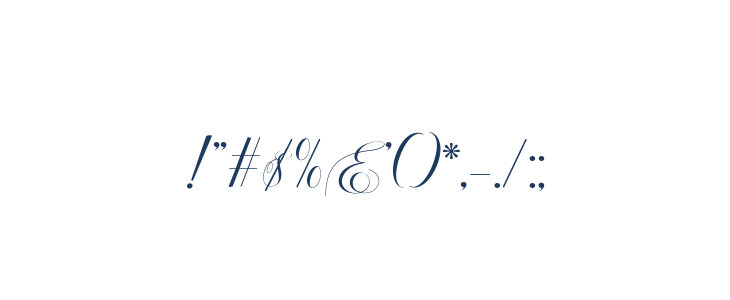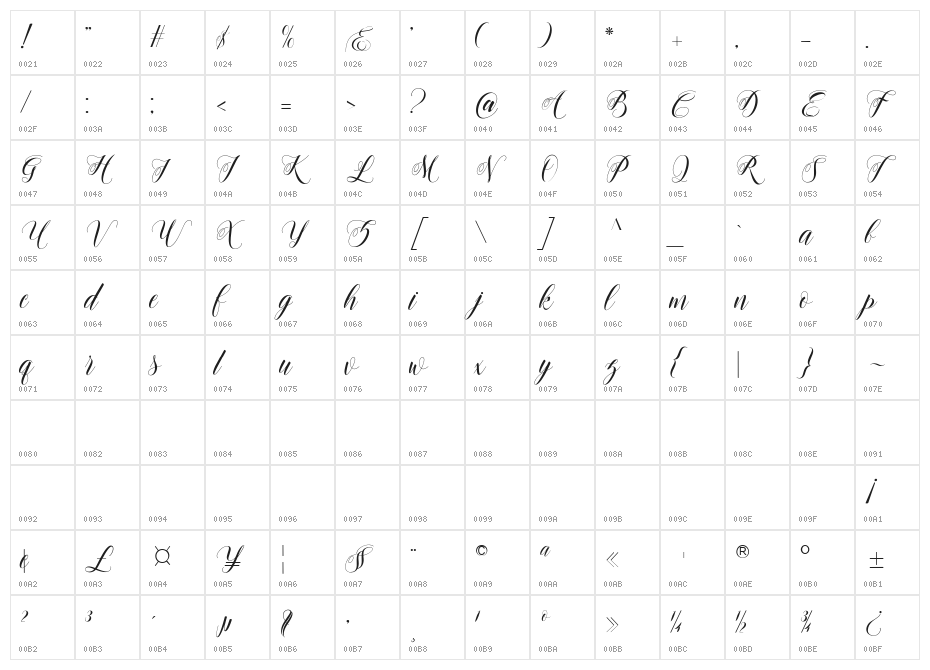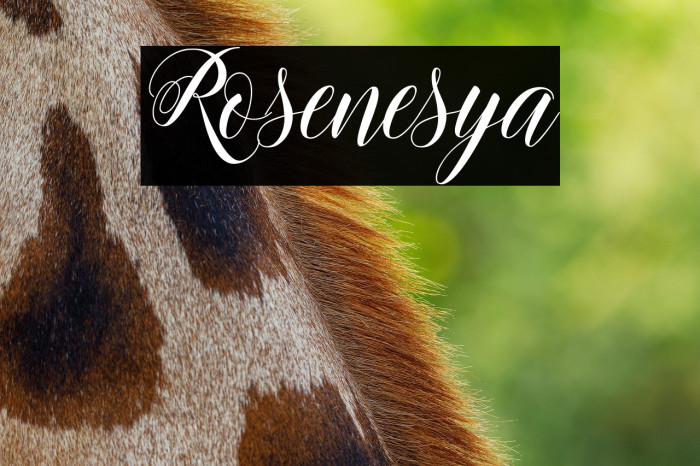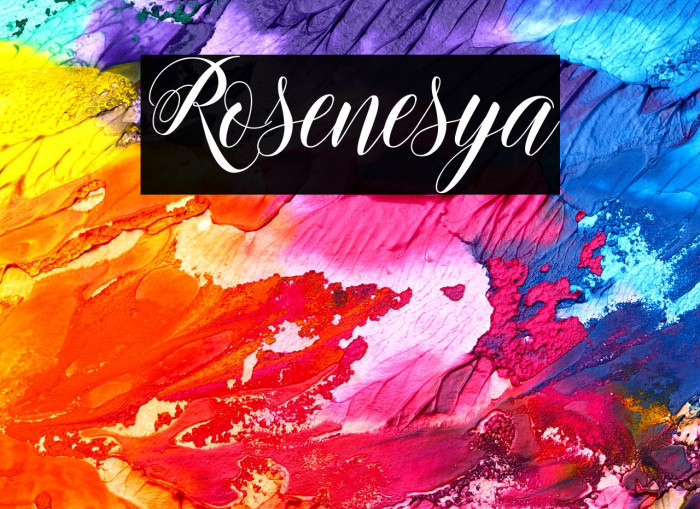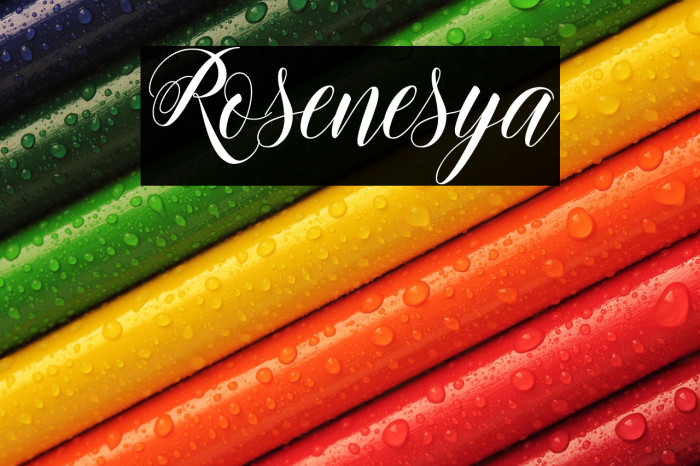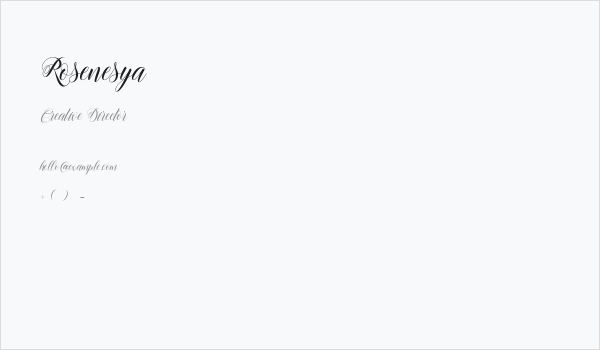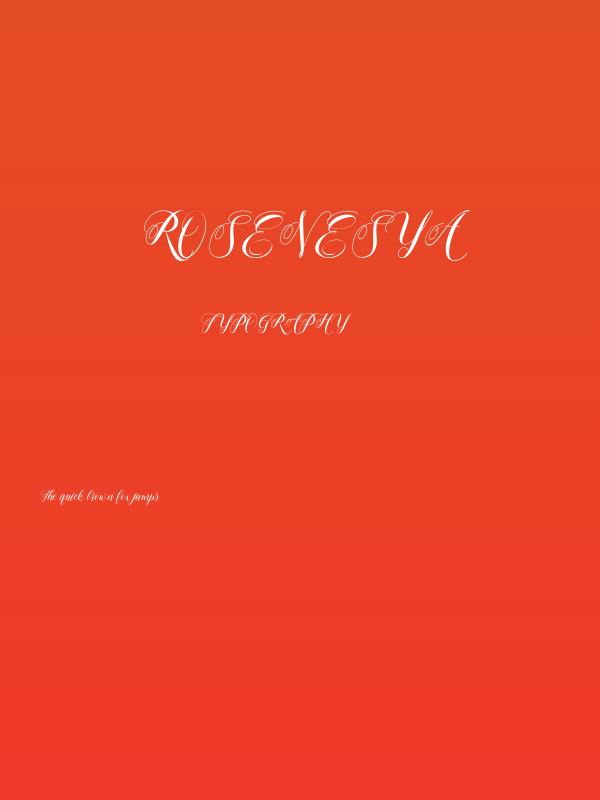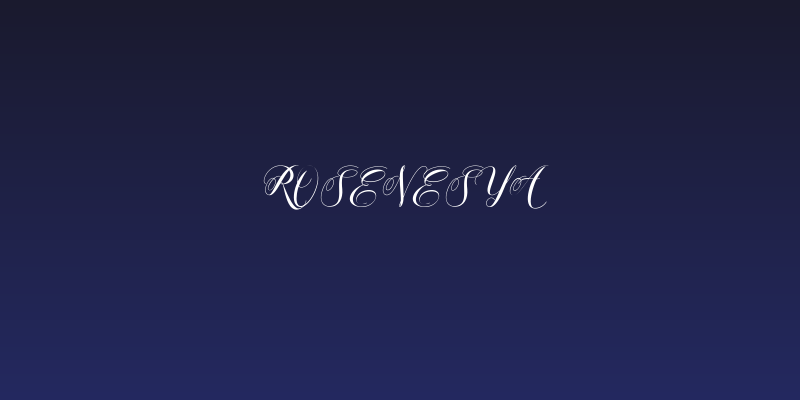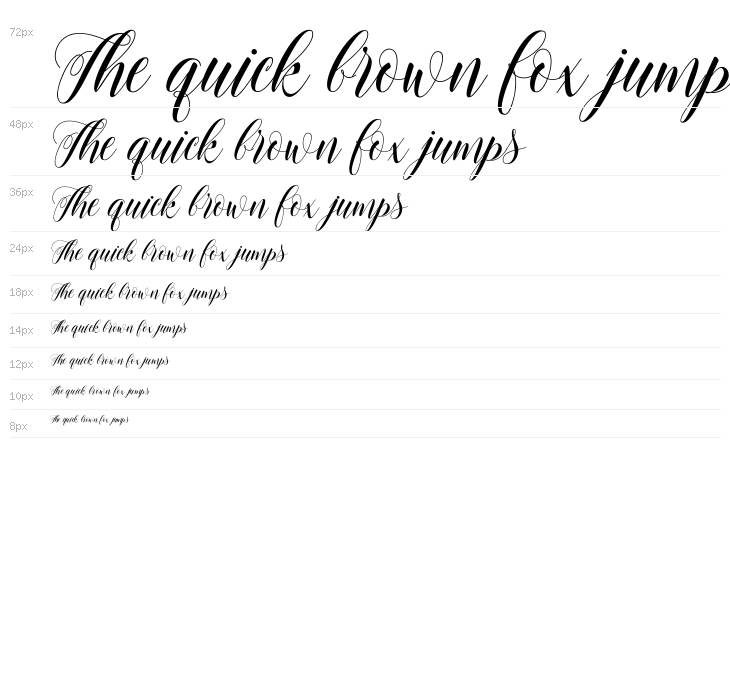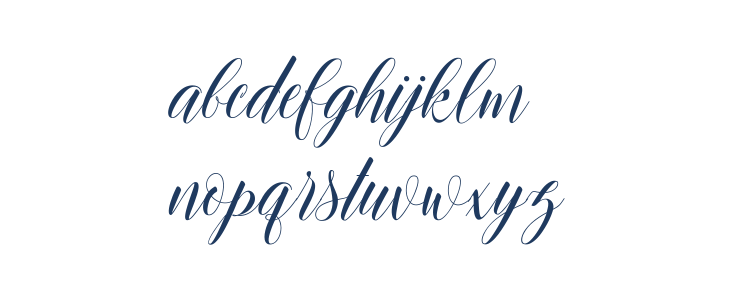
Rosenesya Font
Rosenesya Description
This elegant script font features intricate and flowing letterforms with elaborate swashes and flourishes. The uppercase letters are particularly ornate, with extended loops and curves that give a sense of movement and grace. The lowercase letters maintain a consistent style, offering a harmonious balance between readability and decorative appeal. The font's design is reminiscent of classic calligraphy, making it suitable for formal and sophisticated applications. The numerals and special characters are crafted with the same attention to detail, ensuring a cohesive look across all text elements.
Use CaseLogos, Invitations, Decorative Headlines
Proposed ProjectsIdeal for wedding invitations, luxury branding, elegant stationery, and decorative headlines.